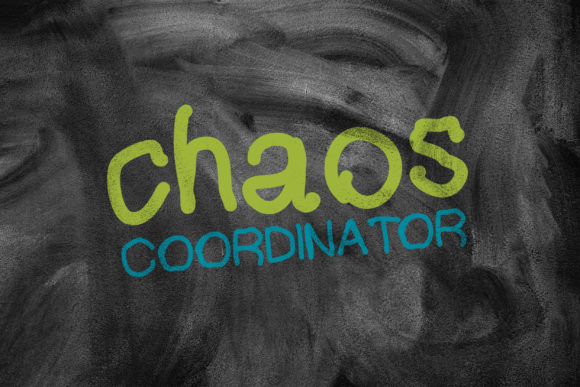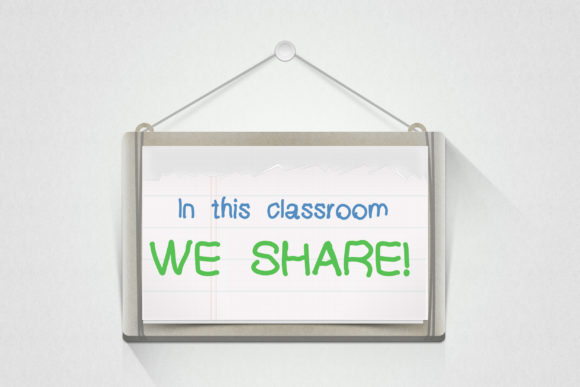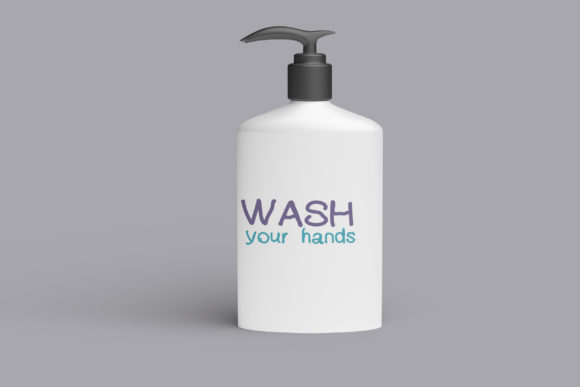
Happy Lad Font
About Happy Lad Font
Happy Lad is a cute and simple handwritten font. No matter the topic, this font will be an incredibly asset to your fonts’ library, as it has the potential to elevate any creation.